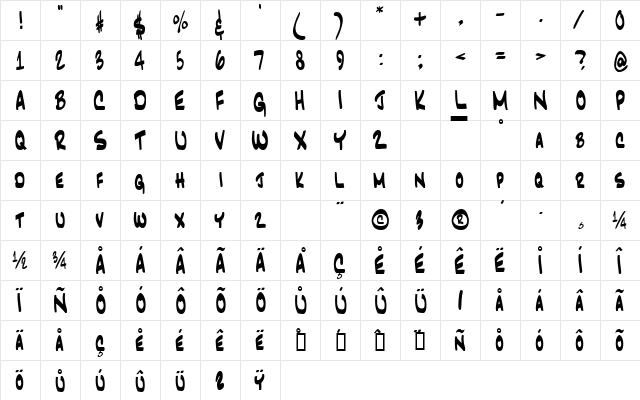
JazzText Extended Regular
Design Context for JazzText Extended Typeface
JazzText Extended is a composed and adaptable typeface that performs quietly and consistently across a wide range of design contexts.
Pro Tip: Use JazzText Extended in both headline and body roles to test its range before committing to a single application.